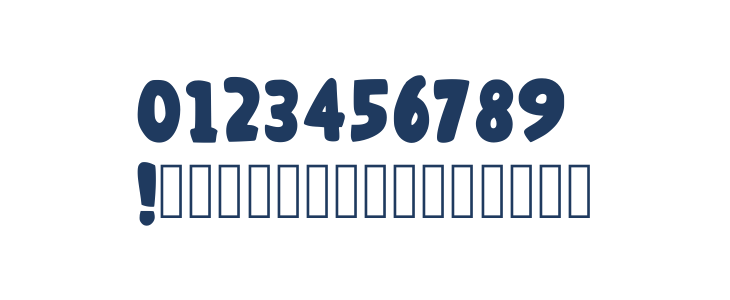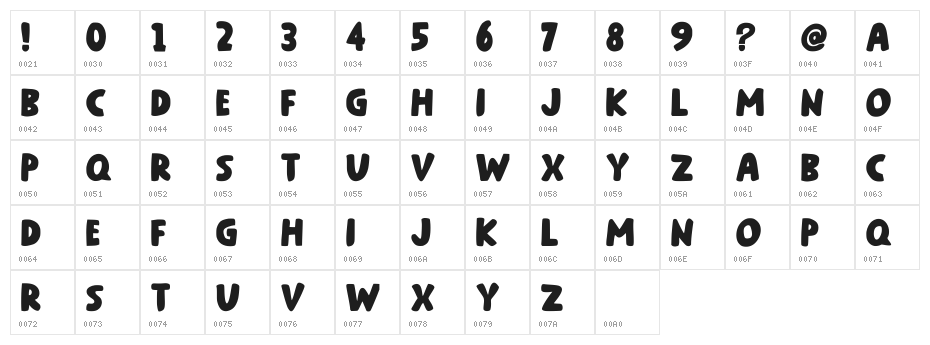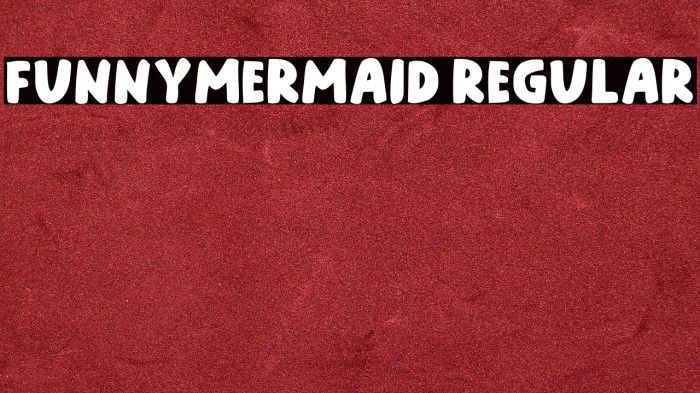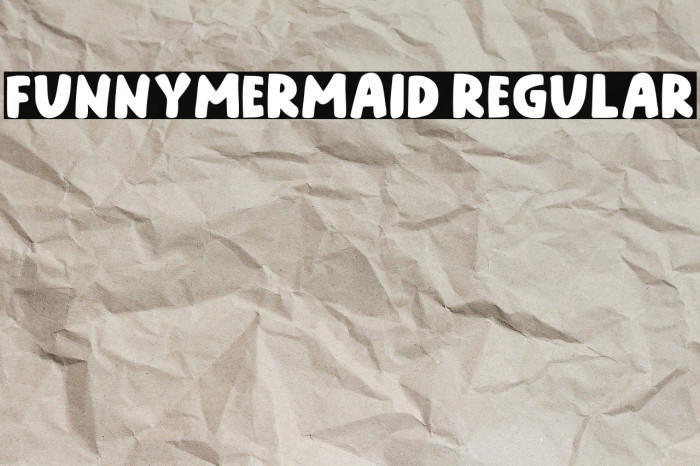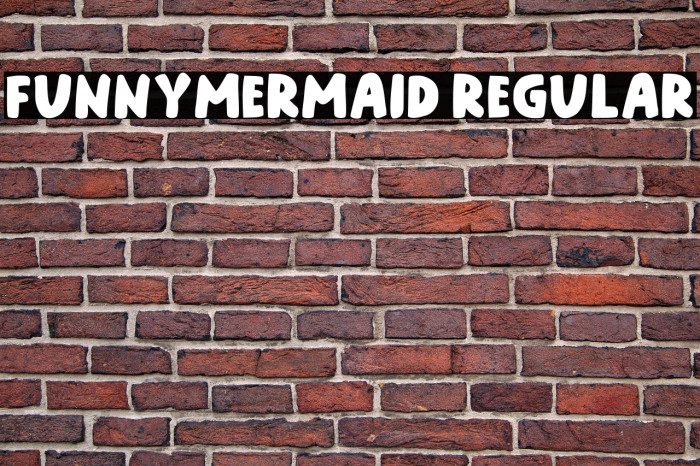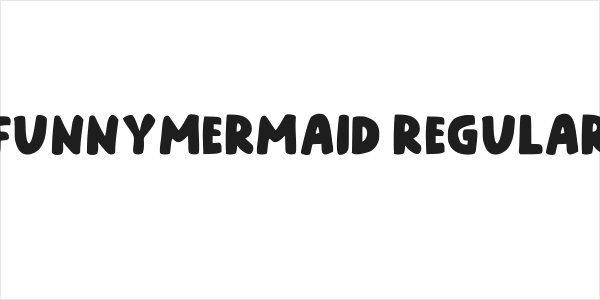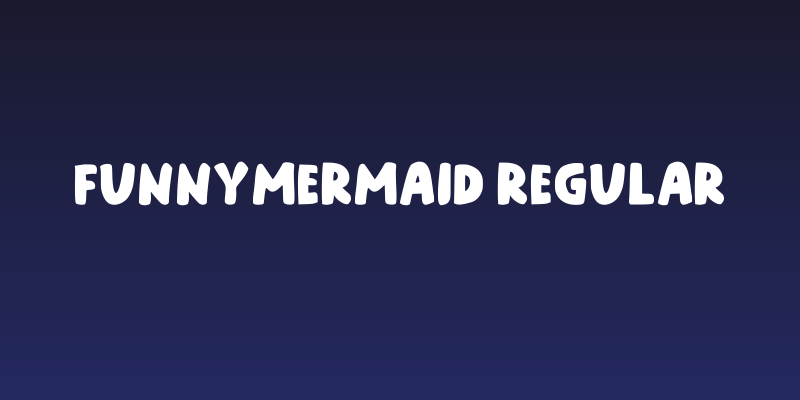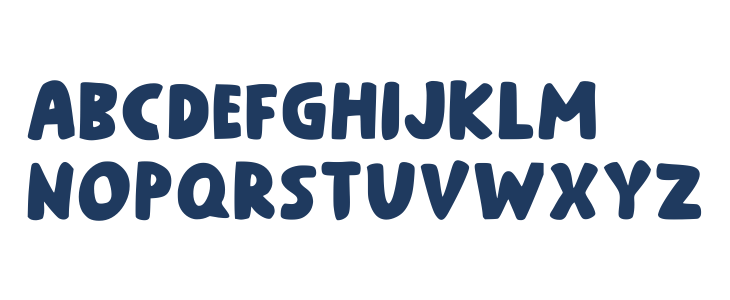
Funnymermaid Regular Font
Funnymermaid Regular Description
This playful and whimsical font features bold, rounded characters with a slightly irregular shape, giving it a hand-drawn, cartoonish feel. The letters are thick and substantial, making them highly legible and eye-catching. The overall style is informal and fun, suitable for projects that require a touch of humor or creativity. The numbers and punctuation marks maintain the same playful aesthetic, ensuring consistency across all text elements. This font is perfect for children's books, comic strips, or any design that aims to convey a sense of joy and lightheartedness.
| Proposed Projects | Ideal for children's books, comic strips, playful branding, and creative posters. |